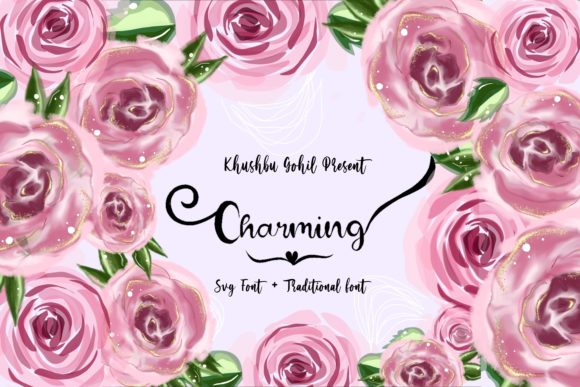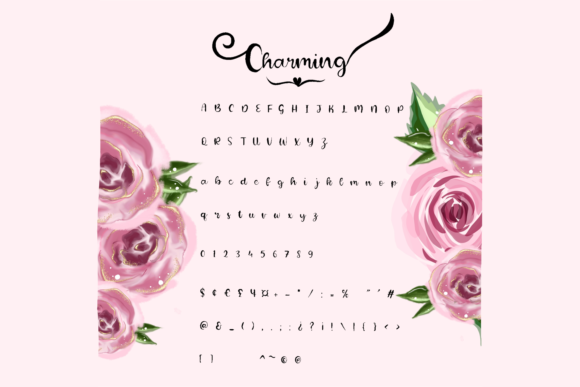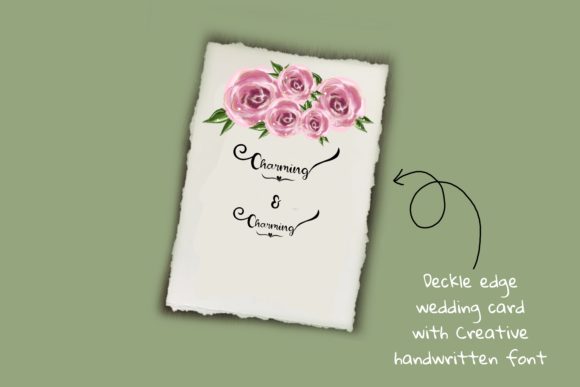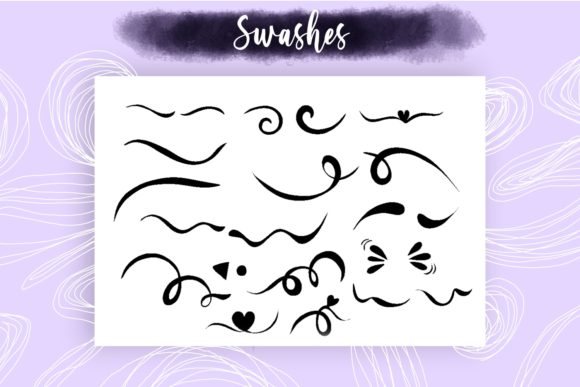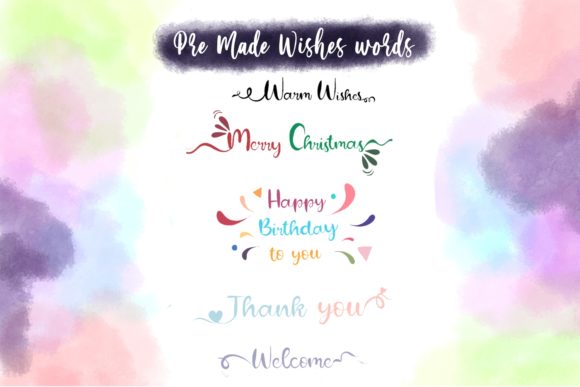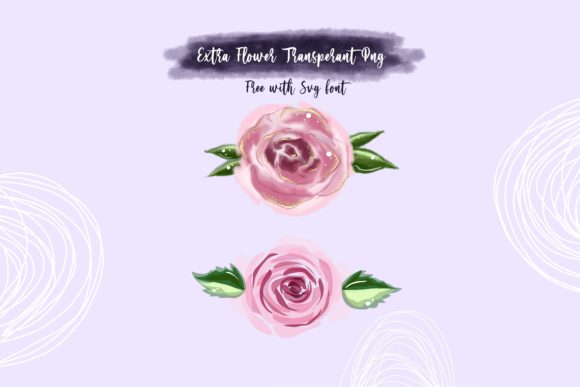
Charming Font
About Charming Font
Charming is a gorgeous handwritten font, ideal for the art enthusiasts. Dainty and joyful, this font will be ideal for writing wedding invitations, cards or any other design that may need a romantic, personalized touch!